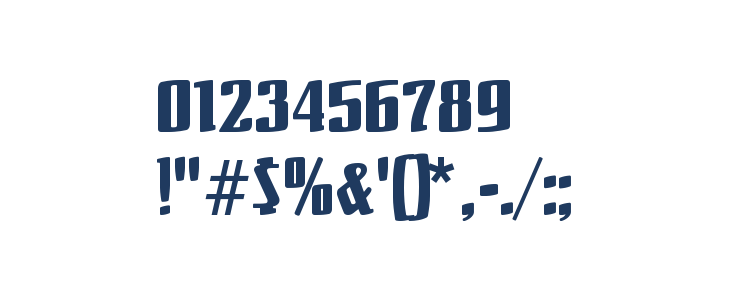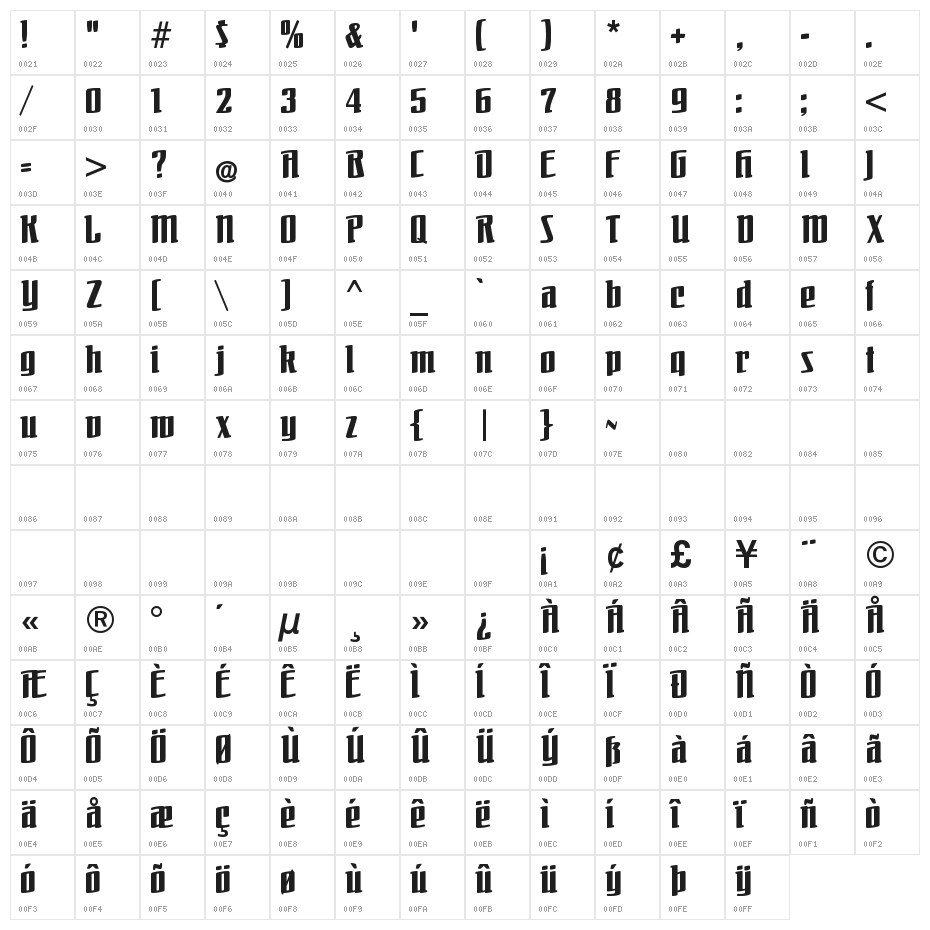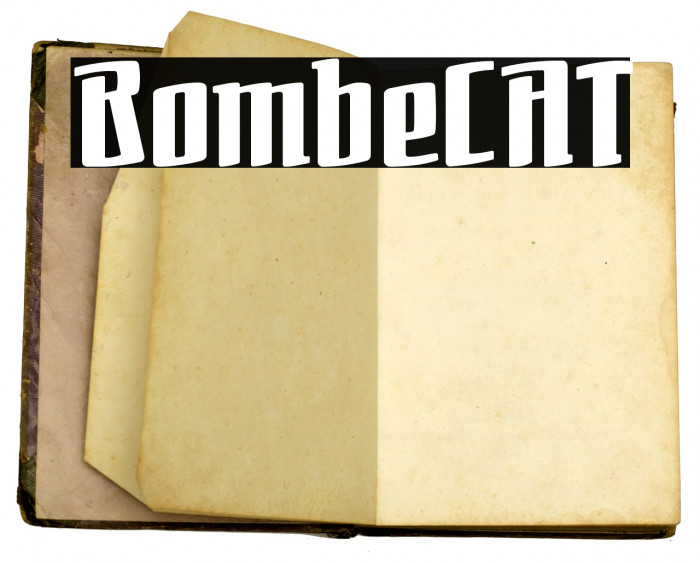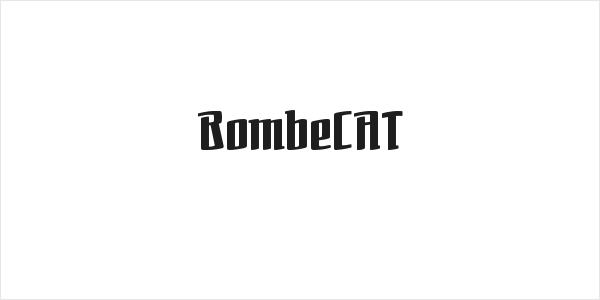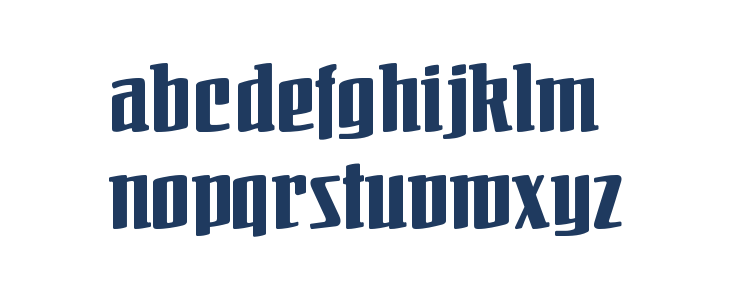
BombeCAT Font
BombeCAT Description
This font features a bold and dynamic design, characterized by its strong, angular lines and slightly condensed letterforms. The uppercase letters exhibit a unique blend of sharp edges and subtle curves, creating a striking visual impact. The lowercase letters maintain a consistent style, with a slightly more rounded appearance that complements the uppercase set. The numerals are robust and easily readable, while the special characters are designed to match the overall aesthetic. This font's high contrast between thick and thin strokes adds to its dramatic and eye-catching appeal.